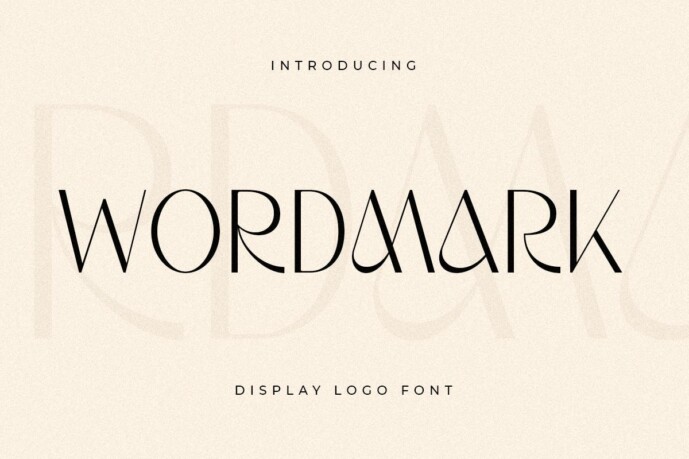
Wordmark Font
Wordmark Font, A unique display logo font that we have created especially for Beauty and Modern branding needs that will give you a more elegant look, with unique shape alternatives will be ready to add value to your brand. It’s so nice to take advantage of a designer or product owner who needs solutions to make their design more beautiful and modern. And especially for this font, we have prepared alternative characters to help you create unlimited variations for your creative needs.